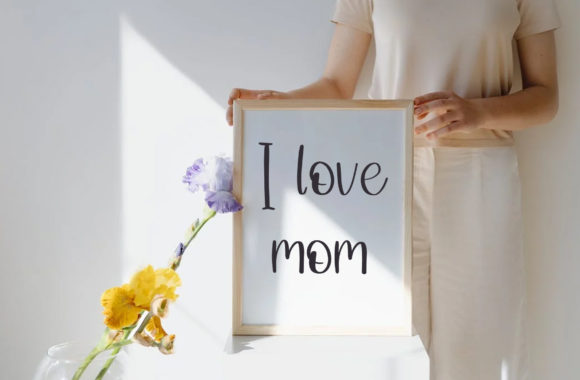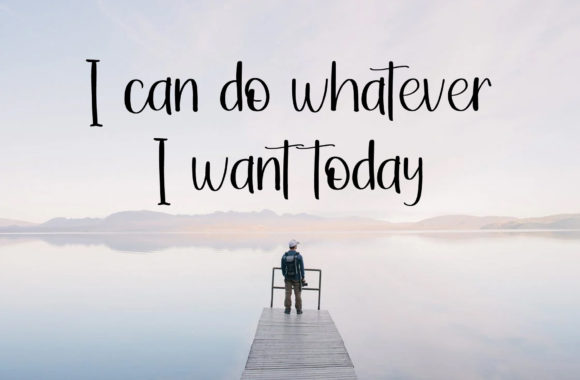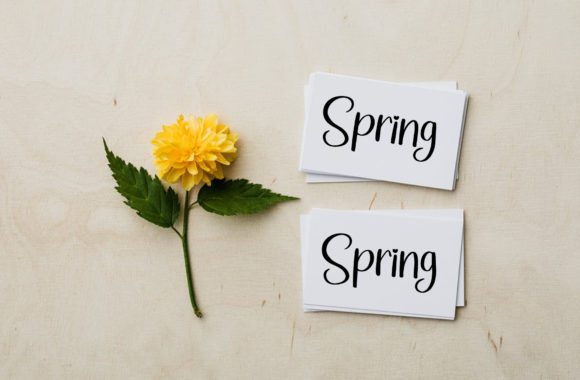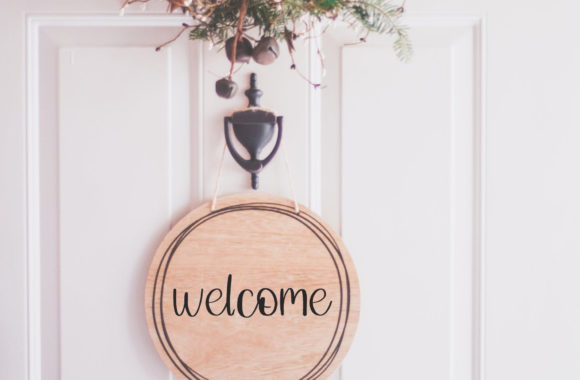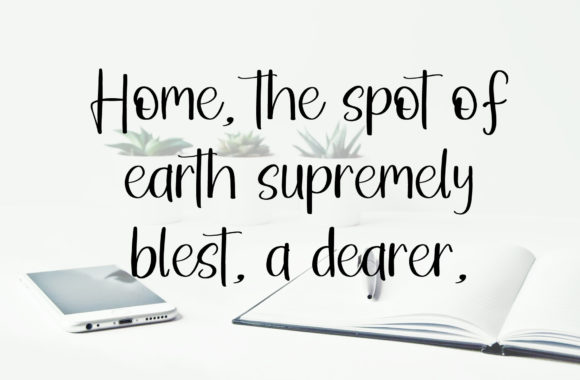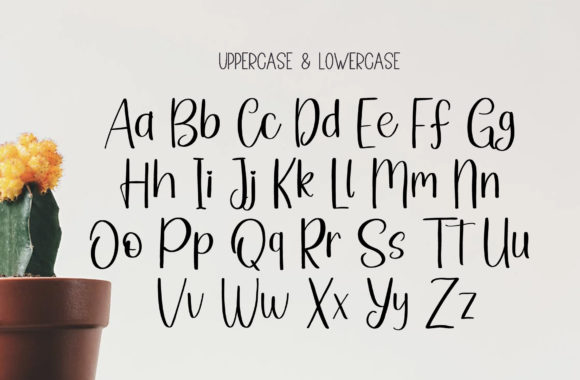
Elevate Your Designs with Hand Lettering Font: The Ultimate Guide
Are you tired of using the same old fonts in your designs? Do you want to add a touch of elegance and sophistication to your projects? Look no further than Hand Lettering Font, a stunning free-flowing script font that’s perfect for a wide range of design applications. In this article, we’ll dive into the world of Hand Lettering Font and explore its features, benefits, and uses.
What is Hand Lettering Font?
Hand Lettering Font is a beautiful and balanced script font designed specifically for creative professionals and crafters. Its unique, flowing style makes it perfect for adding a personal touch to packaging products, invitation cards, flyers, mockups, event posters, and more. With its high-quality vibes, Hand Lettering Font is sure to elevate your designs and set them apart from the rest.
Key Features of Hand Lettering Font
- Free-flowing script style: Hand Lettering Font features a smooth, connected script style that’s perfect for creating elegant and sophisticated designs.
- Beautiful and balanced character: Each character in Hand Lettering Font is carefully crafted to ensure a beautiful and balanced look that fits well with a wide range of design styles.
- High-quality vibes: With its unique and stylish design, Hand Lettering Font is perfect for adding a touch of luxury and sophistication to your projects.
- Versatile: Hand Lettering Font can be used for a wide range of design applications, from packaging products and invitation cards to flyers, mockups, and event posters.
Benefits of Using Hand Lettering Font
So why choose Hand Lettering Font for your designs? Here are just a few benefits of using this amazing font:
- Adds a personal touch: With its unique and stylish design, Hand Lettering Font is perfect for adding a personal touch to your projects and making them stand out.
- Elegant and sophisticated: Hand Lettering Font is perfect for creating elegant and sophisticated designs that are sure to impress.
- High-quality results: With Hand Lettering Font, you can create high-quality designs that are sure to impress your clients and audience.
Uses of Hand Lettering Font
So what can you use Hand Lettering Font for? Here are just a few ideas to get you started:
- Packaging products: Add a touch of elegance and sophistication to your product packaging with Hand Lettering Font.
- Invitation cards: Create beautiful and stylish invitation cards for weddings, parties, and other special events.
- Flyers and brochures: Use Hand Lettering Font to create eye-catching flyers and brochures that are sure to grab attention.
- Mockups: Add a touch of realism to your mockups with Hand Lettering Font.
- Event posters: Create stunning event posters that are sure to impress your audience.
Tips for Using Hand Lettering Font
Here are a few tips for getting the most out of Hand Lettering Font:
- Experiment with different sizes and colors: Don’t be afraid to experiment with different sizes and colors to find the perfect look for your design.
- Pair with other fonts: Hand Lettering Font pairs well with a wide range of fonts, so don’t be afraid to experiment with different combinations.
- Use for headlines and titles: Hand Lettering Font is perfect for headlines and titles, but don’t be afraid to use it for body text as well.
| Font Name | Hand Lettering Font |
| Author | Fontysia |